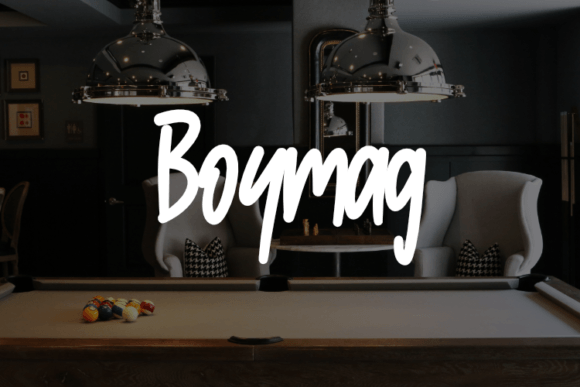
Experience the Versatility of Boymag: The Ultimate Font Choice for Fashion Creatives
In the world of fashion design, the right font can make all the difference. It’s not just about conveying a message; it’s about style, attitude, and creating a lasting impression. For creatives looking to elevate their design game, Boymag font is the ultimate choice. Specifically crafted for fashion enthusiasts and designers, Boymag is more than just a font – it’s a tool that brings your unique design visions to life.
The Birth of Boymag: A Font Tailored for Fashion
Boymag was created with a clear purpose in mind: to provide fashion creatives with a versatile, stylish, and highly adaptable font. Whether you’re designing trendy t-shirts, standout accessories, or any other apparel, Boymag seamlessly integrates into your creative process. Its design is rooted in the needs of fashion designers who require a font that is not only stylish but also functional.
A sample of Boymag font in use, showcasing its versatility and stylish appeal.
Seamless Adaptability Across Design Visions and Software
One of the standout features of Boymag is its incredible adaptability. This font is designed to fit into any design vision you might have. Whether you’re going for a minimalist look, a bold statement, or anything in between, Boymag adjusts effortlessly. Moreover, it is compatible with a wide range of design software, making it a versatile tool for creatives who work across different platforms.
Blending Style and Function
Boymag intricately blends style and function, making it the perfect font for fashion creatives. Its stylish appeal is evident in its sleek lines and modern aesthetic, while its functional design ensures that it can be used in a variety of contexts. Whether you’re creating a logo, designing a t-shirt, or crafting a brand identity, Boymag brings a level of sophistication and elegance to your work.
Infographic: The Boymag Advantage
- Versatility: Suitable for a wide range of fashion items and accessories.
- Style: Offers a modern and sleek aesthetic.
- Functionality: Compatible with various design software.
- Adaptability: Fits seamlessly into any design vision.
Bringing Life to Your Design Expressions
The true power of Boymag lies in its ability to breathe life into your unique design expressions. Its easily adaptable form means that you can experiment with different styles and ideas without being limited by your font choice. Whether you’re a seasoned designer or just starting out, Boymag empowers you to push the boundaries of your creativity.
Tips for Using Boymag in Your Designs
- Experiment with Sizes: Boymag looks great in various sizes, from large headlines to smaller body text.
- Play with Colors: The font’s sleek design works well with a variety of colors and gradients.
- Mix and Match: Don’t be afraid to combine Boymag with other fonts for a unique look.
Why Choose Boymag for Your Design Ventures?
Choosing Boymag for your design ventures means you’re opting for a font that is specifically designed with fashion creatives in mind. Its versatility, style, and functionality make it an invaluable tool in your design arsenal. Here are a few reasons why Boymag stands out:
- Unique Style: Boymag offers a fresh and modern aesthetic that sets it apart from more generic fonts.
- Ease of Use: Its adaptability and compatibility with various software make it incredibly easy to use.
- Creative Freedom: With Boymag, you have the freedom to experiment and explore different design ideas without limitations.
Boymag is more than just a font – it’s a creative partner that helps fashion designers and creatives bring their visions to life. Its blend of style, functionality, and adaptability makes it the ultimate choice for anyone looking to elevate their fashion design work. Whether you’re designing apparel, accessories, or crafting a brand identity, Boymag is the perfect tool to help your creative ideas bloom.